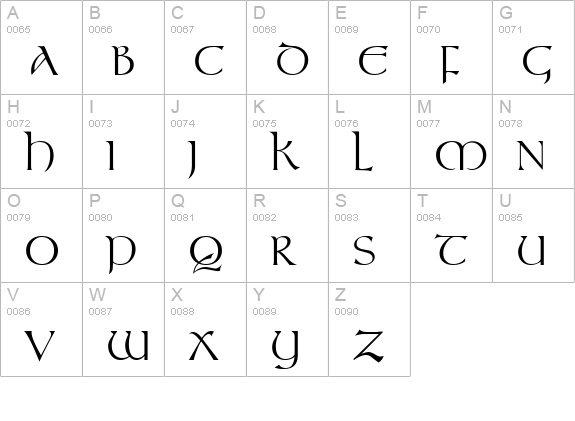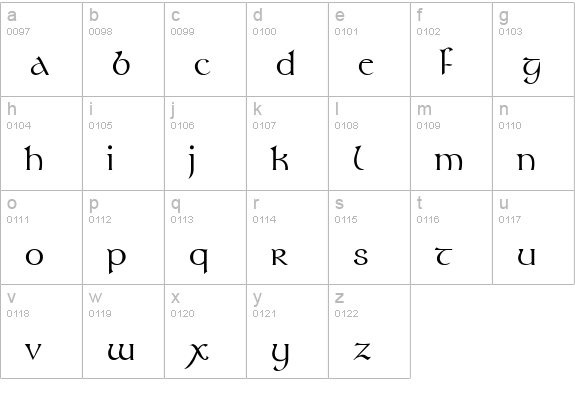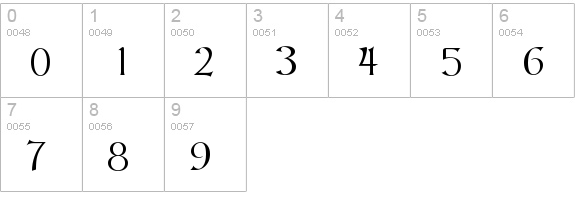
Tolkien Font Details
Introducing the enchanting Tolkien font, a beautiful typeface that will transport you to the magical realms of Middle-earth. Inspired by the timeless works of J.R.R. Tolkien, this font captures the essence of his extraordinary imagination and brings it to life on the page. With its intricate and intricate letterforms, Tolkien font exudes an air of elegance and sophistication, reminiscent of the elven scripts found within the pages of Tolkien's epic tales. Each stroke of the pen is meticulously crafted, creating a seamless flow of characters that dance across the page, igniting the imagination and sparking a sense of wonder. But what truly sets the Tolkien font apart is that it is not only captivating, but also free. Yes, you read that right. This extraordinary font is freely available to download at FontsMarket.com. Whether you are a passionate fan of Tolkien's works, a designer seeking to add a touch of magic to your projects, or simply someone who appreciates the beauty of typography, the Tolkien font is a must-have in your collection. Imagine the possibilities as you adorn your invitations, create stunning logos, or design eye-catching posters with this remarkable font. Let its graceful curves and elegant serifs transport you to the Shire, the Rivendell, or even the fiery Mount Doom itself. The possibilities are endless with the Tolkien font. So why wait? Embrace the magic and download the Tolkien font today, completely free, at FontsMarket.com. From the first stroke of the pen to the final flourish, let this extraordinary font weave its spell and bring your creative visions to life. Immerse yourself in the world of Tolkien and let your imagination soar. The power is in your hands, and the journey awaits.